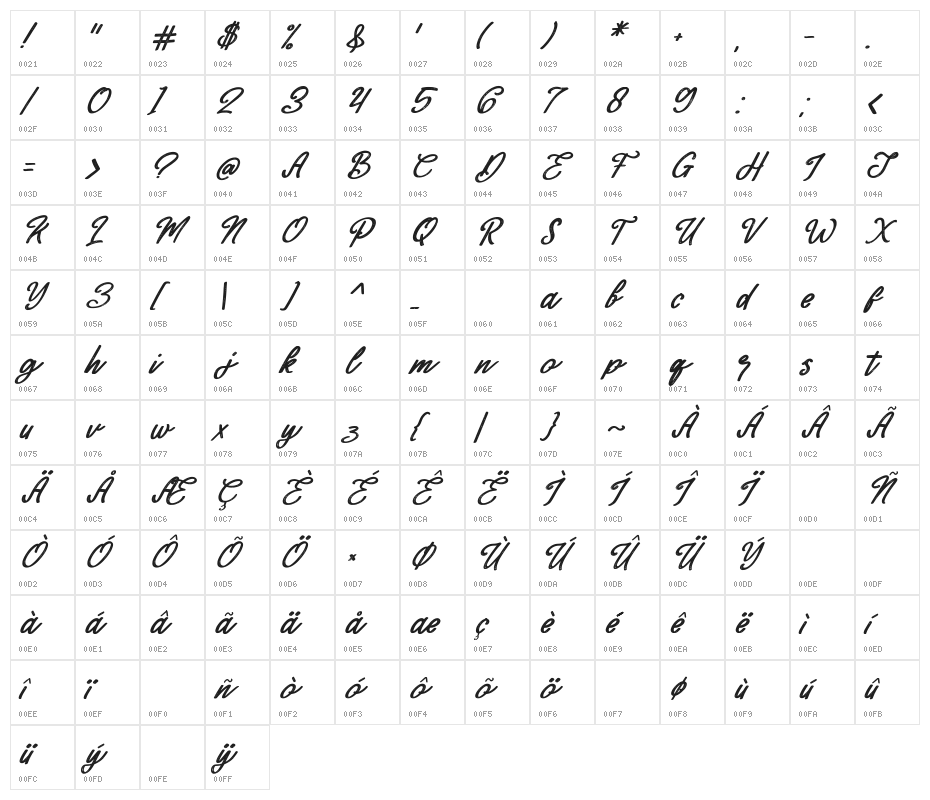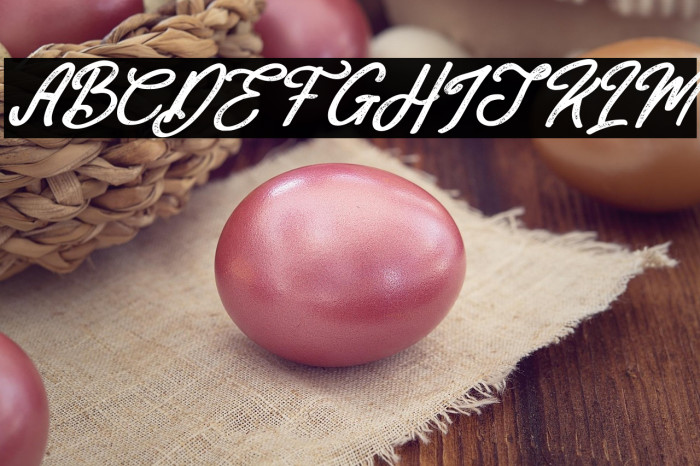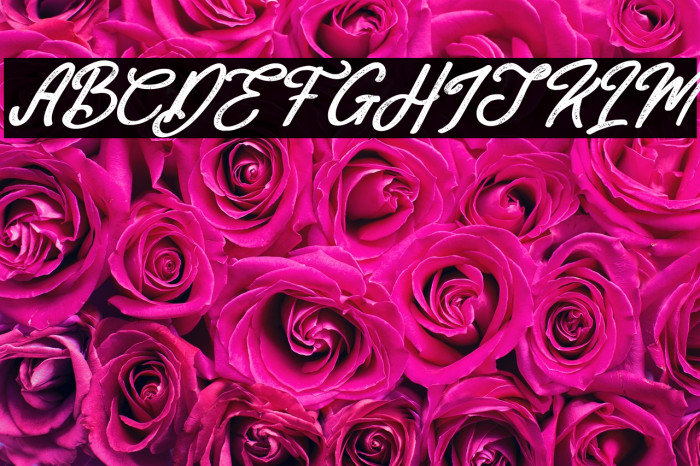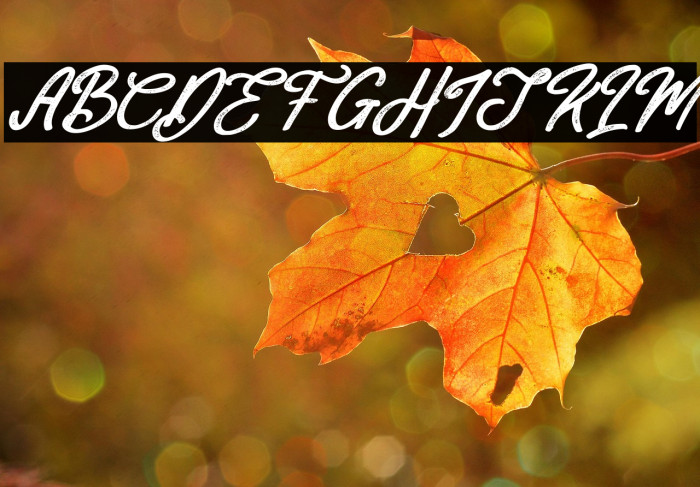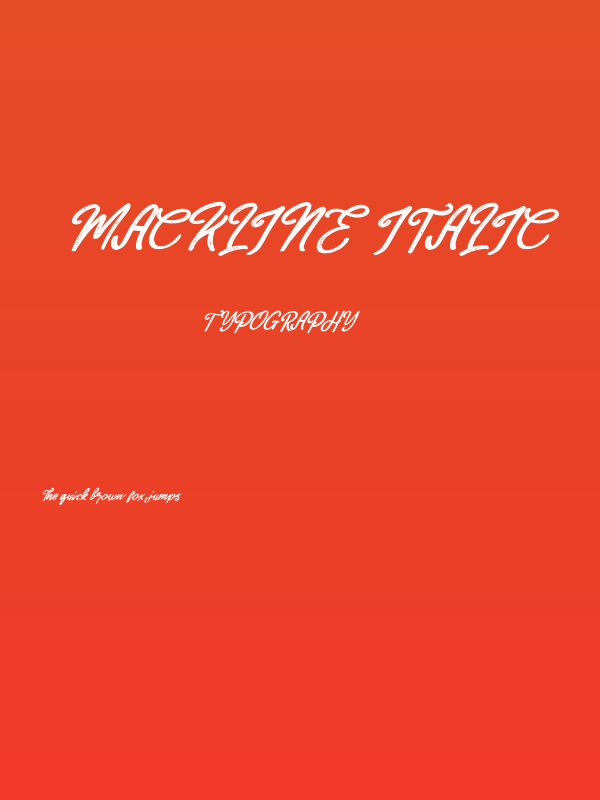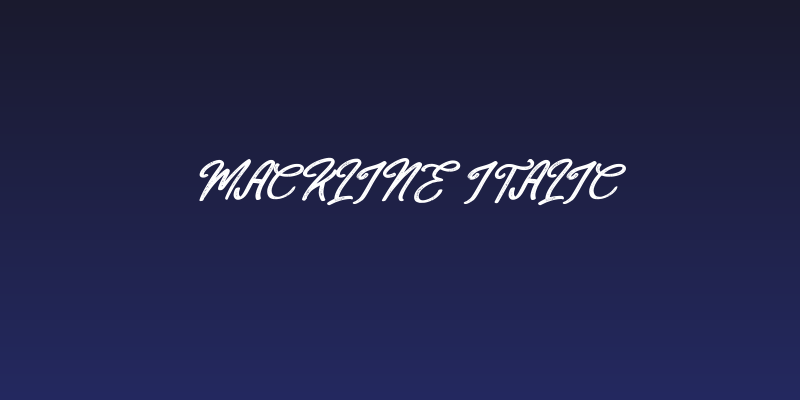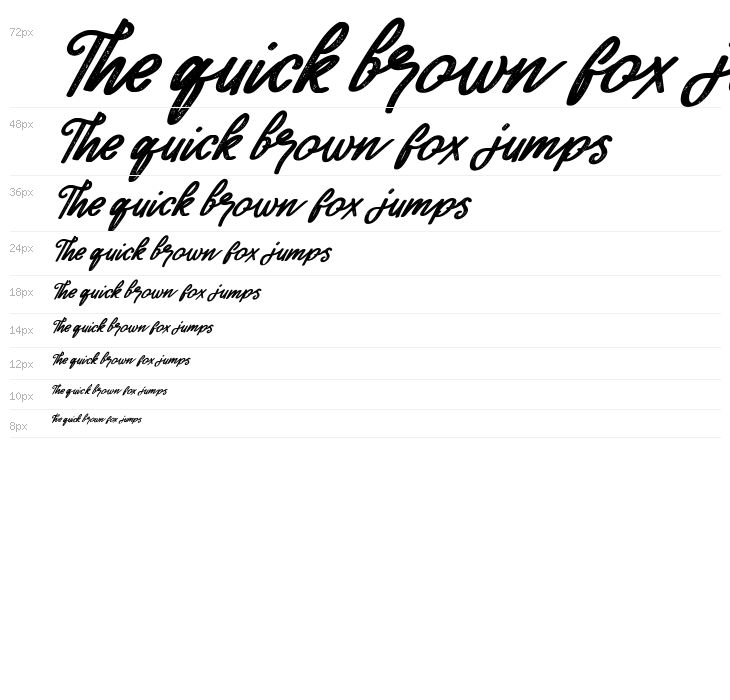
Mackline Italic Font
Mackline Italic Description
This font exudes a dynamic and expressive style with its cursive, flowing letters. Each character is designed with a sense of movement, featuring smooth curves and elegant loops. The strokes are moderately thick, giving the font a bold presence while maintaining a sense of grace. The italic slant enhances its fluidity, making it suitable for conveying a sense of elegance and creativity. The uppercase letters are slightly more ornate, while the lowercase letters maintain a consistent rhythm. The numbers and special characters are crafted to match the overall aesthetic, ensuring a cohesive look across all elements.